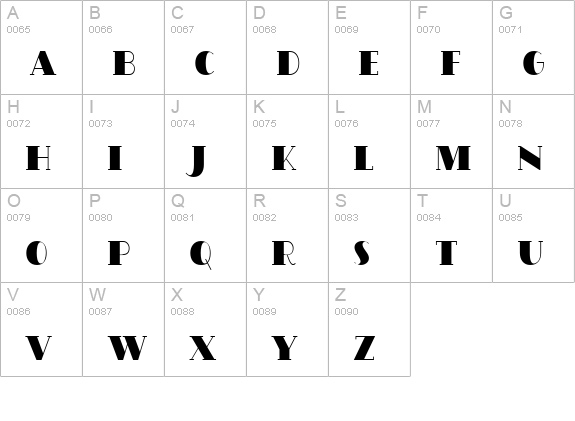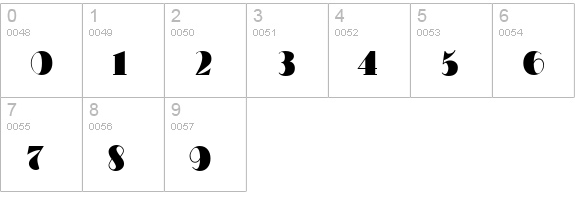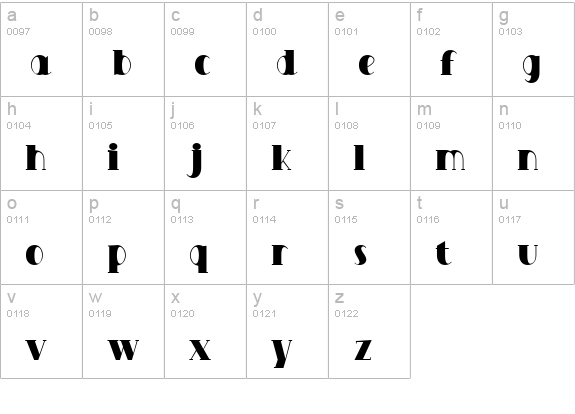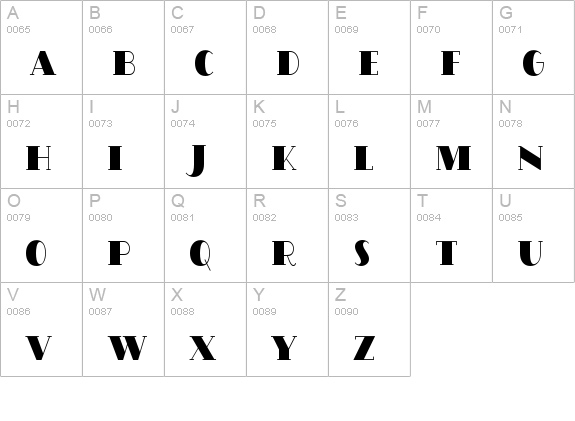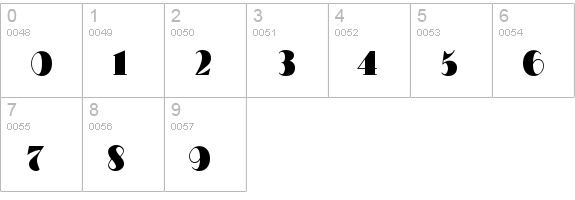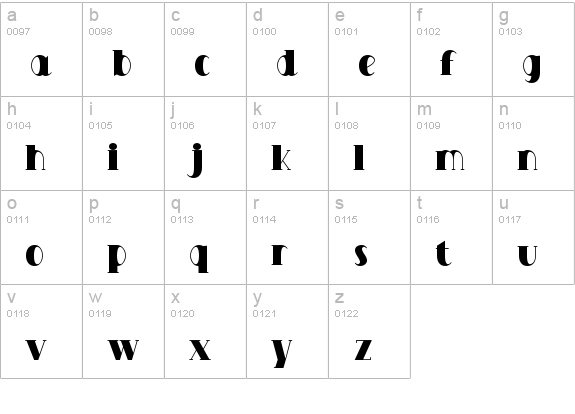
OakParkBlvd Plain Font Details
Introducing OakParkBlvd Plain font, a sleek and modern typeface perfect for a wide range of design projects. With its clean lines and timeless appeal, OakParkBlvd Plain exudes sophistication and professionalism. This versatile font is ideal for branding, logo design, headlines, and more. The best part? OakParkBlvd Plain is available for free download at FontsMarket.com. Don't miss out on the opportunity to add this beautifully crafted font to your collection today. Whether you're a designer, business owner, or creative enthusiast, OakParkBlvd Plain is sure to elevate your projects and make a lasting impression. Download now and unleash your creativity with this stunning font.